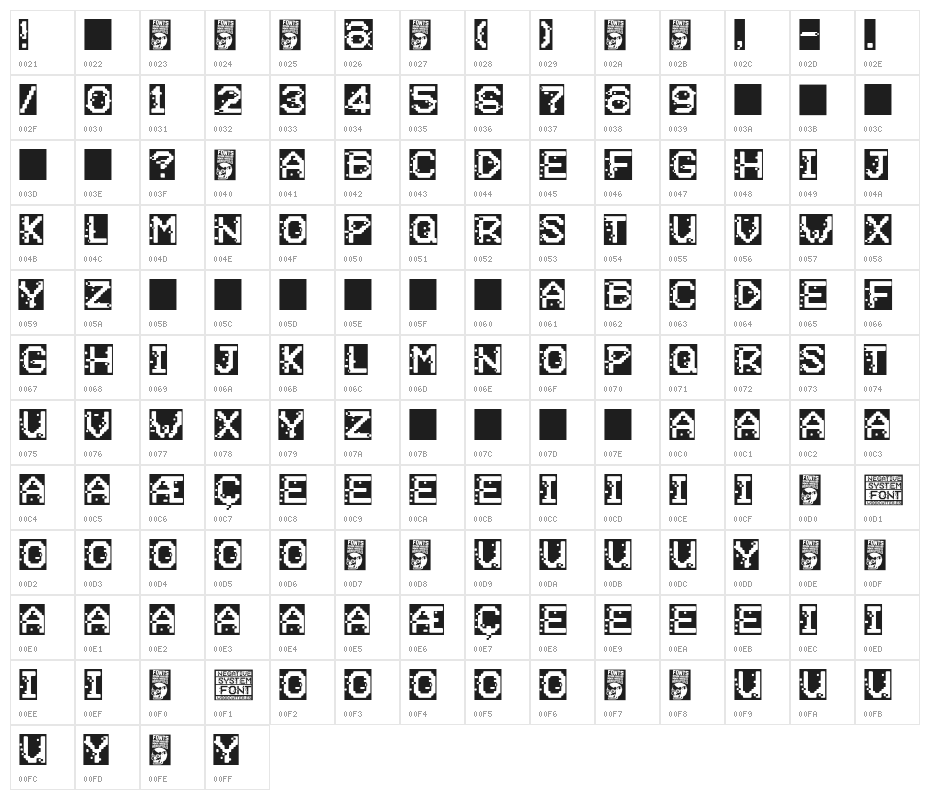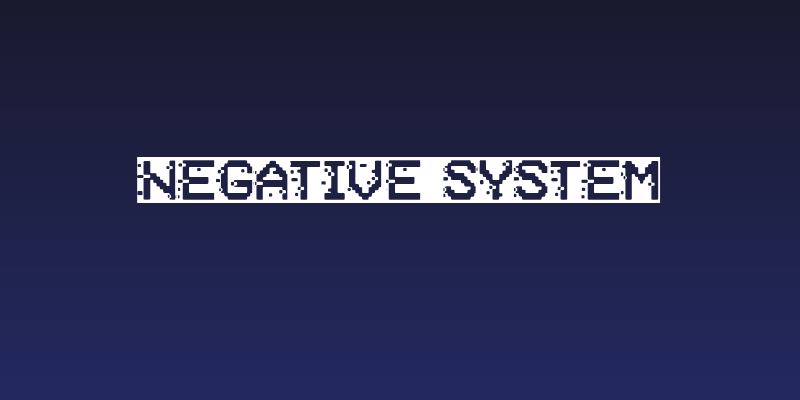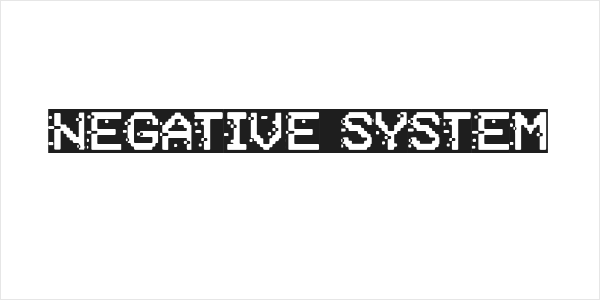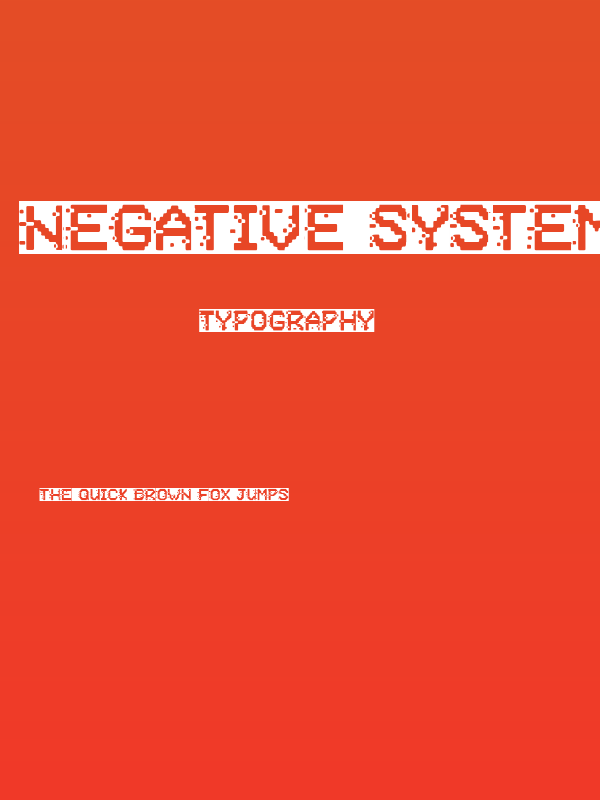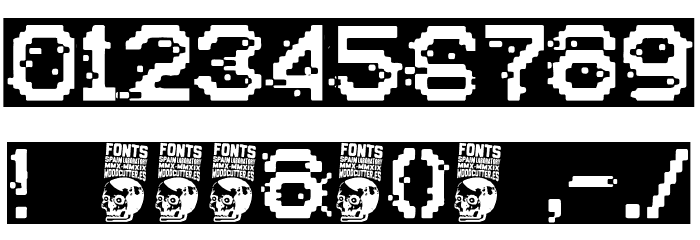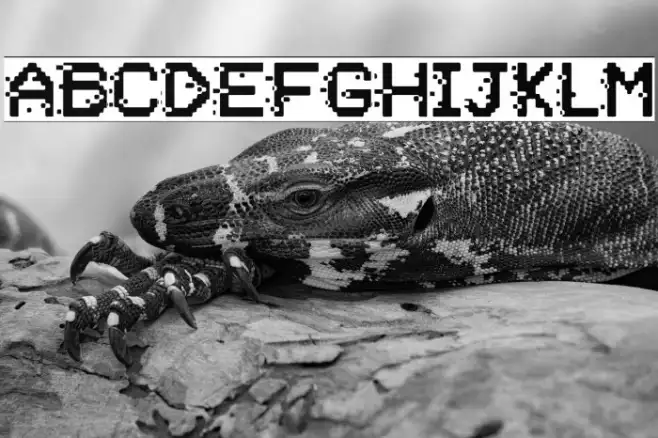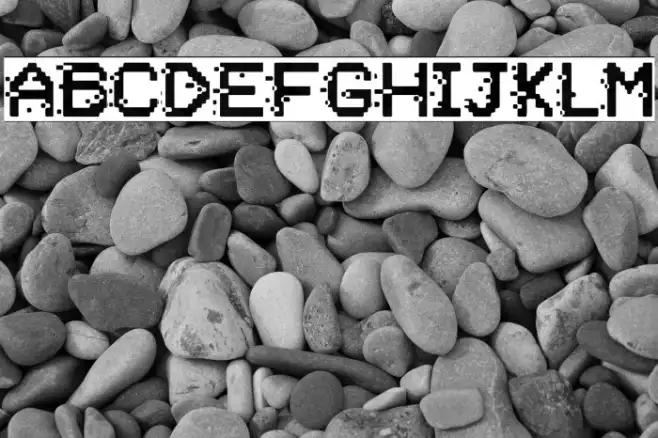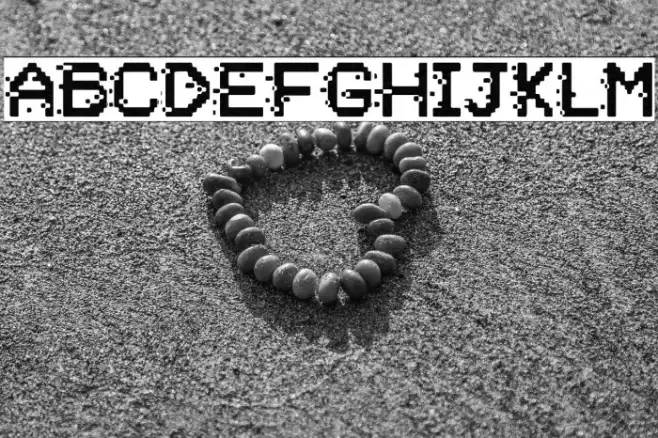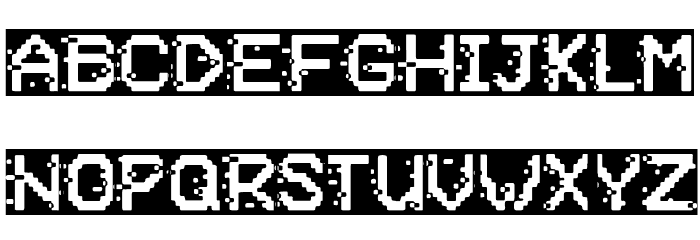
Negative System Font
Negative System Description
This font features a distinct pixelated style with a retro, digital aesthetic reminiscent of early computer graphics. Each character is composed of blocky, square shapes with a consistent grid-like pattern, giving it a unique, tech-inspired look. The font's design includes small, evenly spaced dots that add a decorative element, enhancing its visual appeal. The characters are bold and prominent, making them highly legible even at smaller sizes. This font's playful and nostalgic vibe makes it suitable for projects that aim to evoke a sense of vintage technology or digital art.
| Proposed Projects | Ideal for video game design, digital art projects, retro-themed posters, and technology-related branding. |